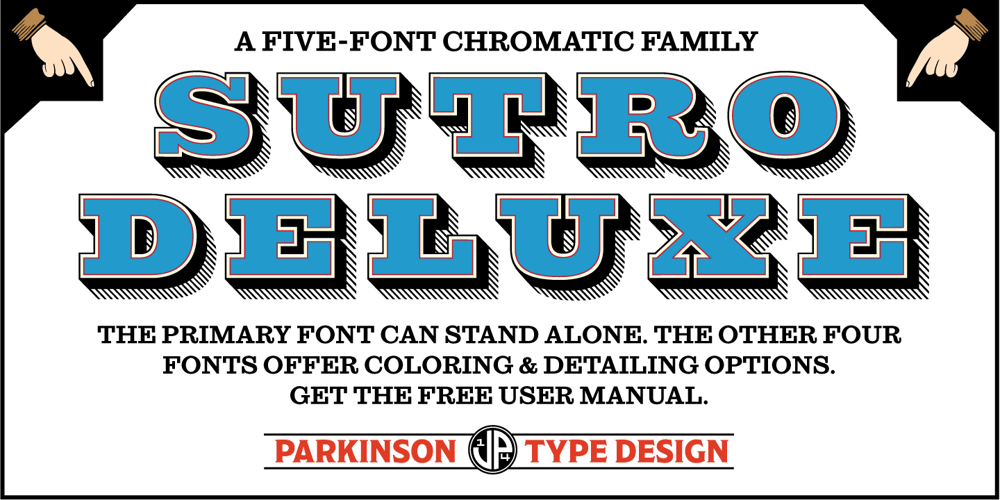
Sutro Deluxe Font Family was designed by Jim Parkinson and published by Parkinson. Sutro Deluxe contains 5 styles and family package options. Sutro Deluxe is a bold slab serif with a double drop shadow. It was originally conceived as a simple black and white display alphabet. But it seemed unfinished, begging for something more. I decided to try adding a couple layers of fill and detail to try and make it interesting. The result is this five-layer chromatic font family. The Primary Font is the Main Font. The other fonts ( Fill, Inline and Shaded Inline) only exist to support the Primary Font.There is some color trapping going on.To make sure you are laying the fonts on top of one another in the optimum order, I recommend the free PDF User Manual. The downloadable PDF Sutro Deluxe User Manual is in the Gallery section for this family.